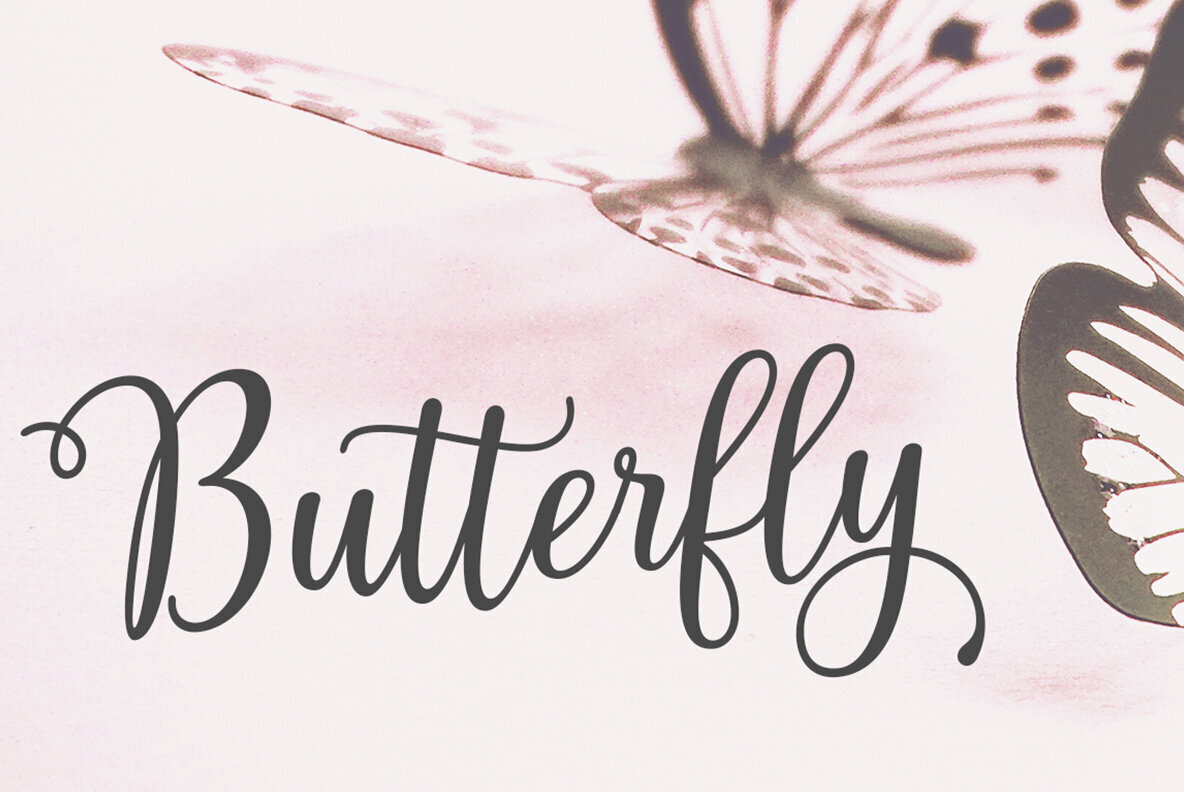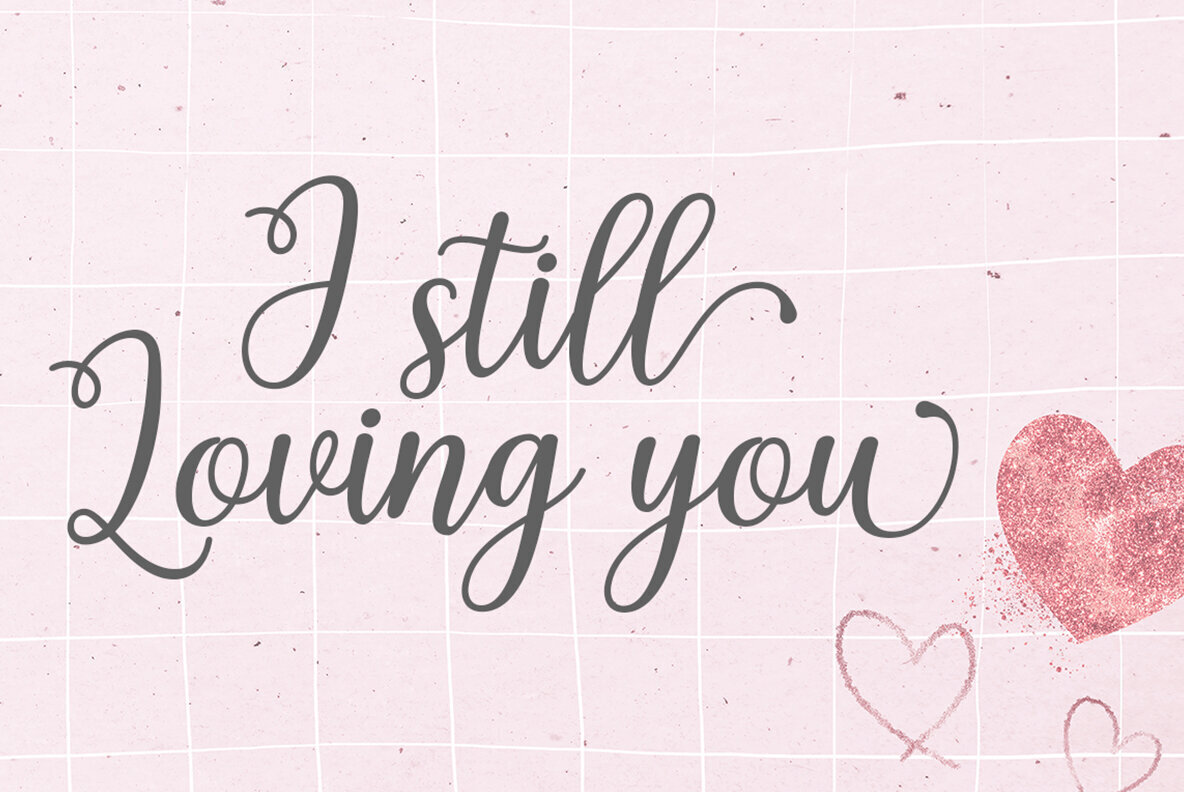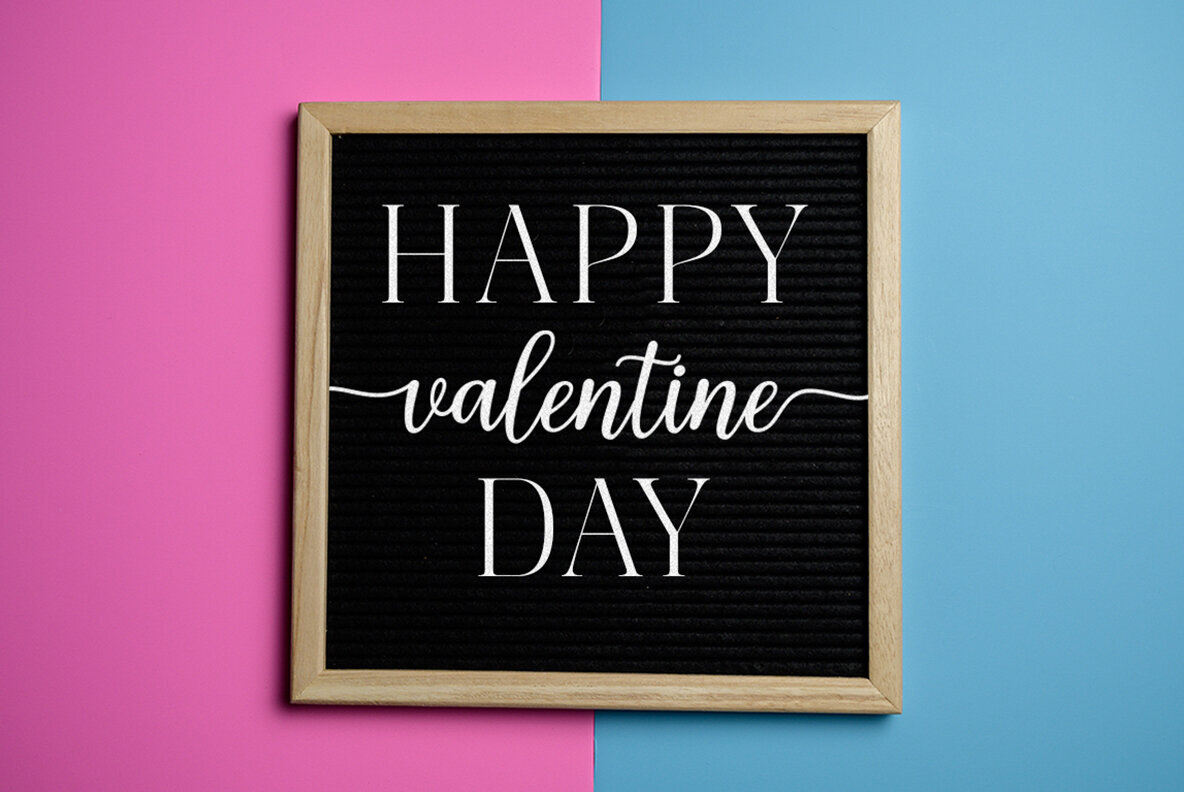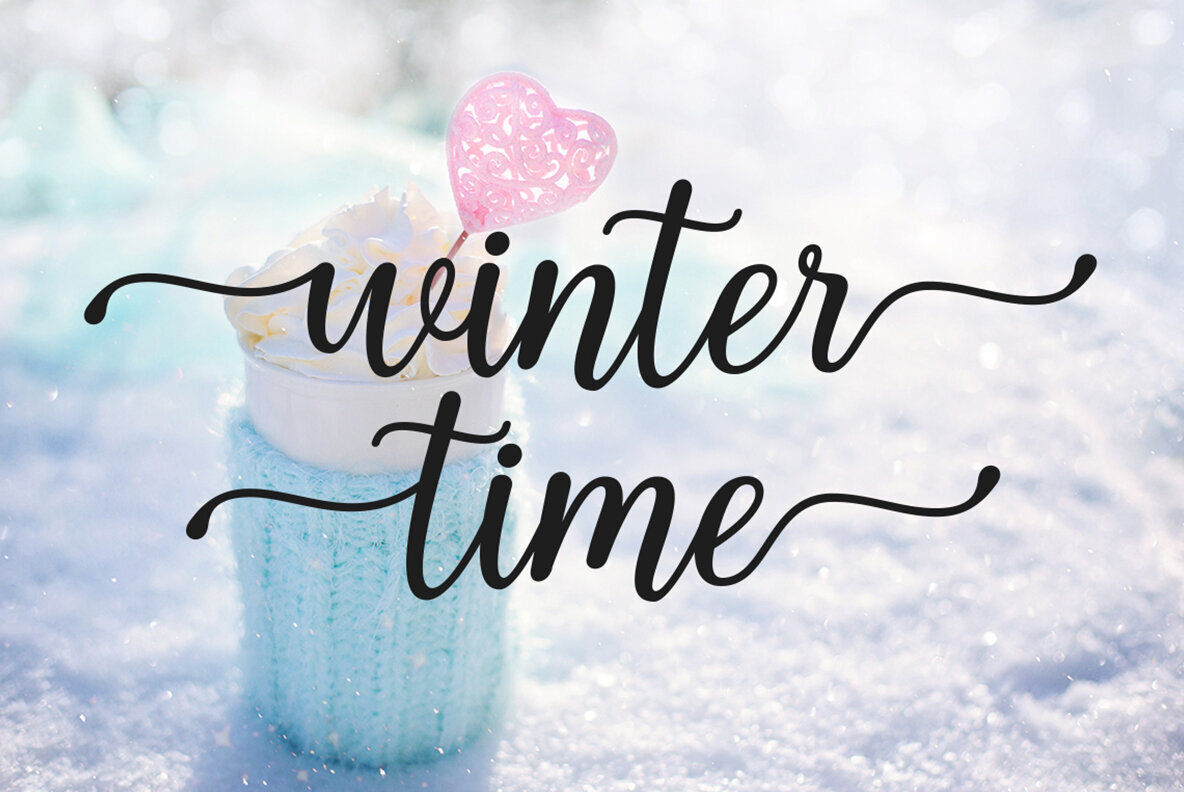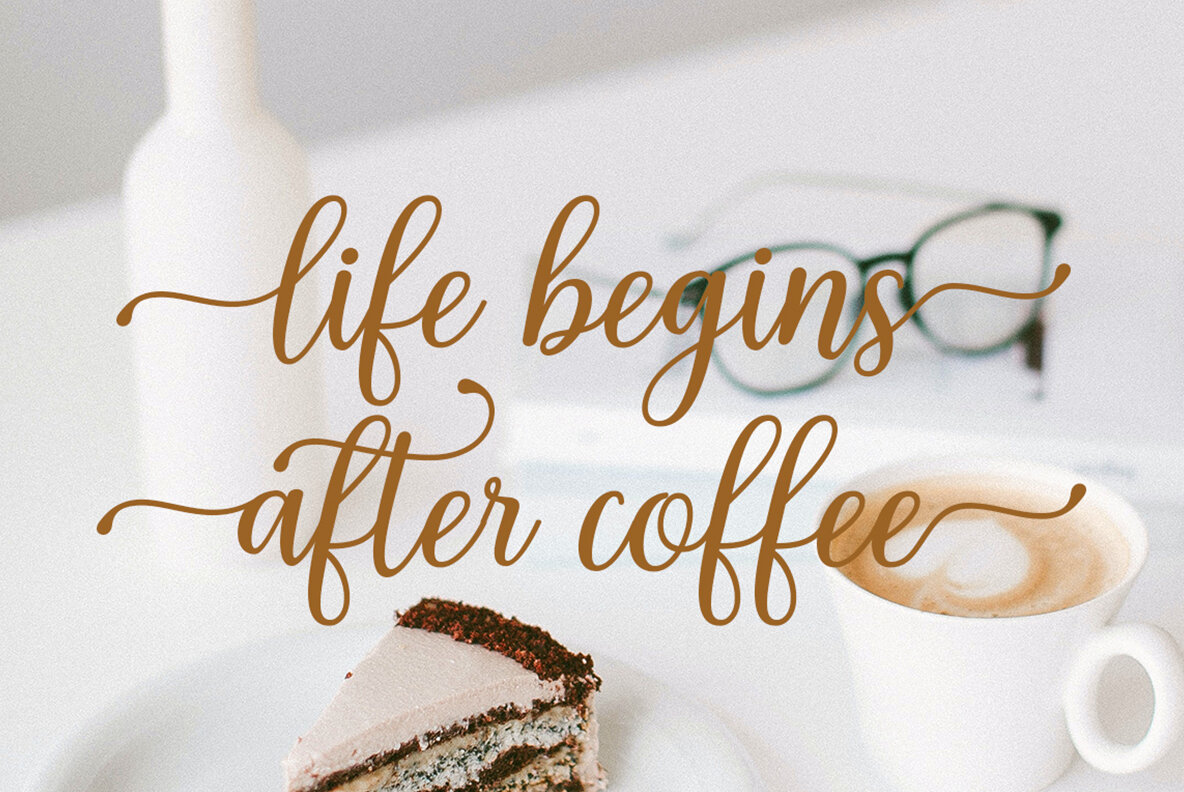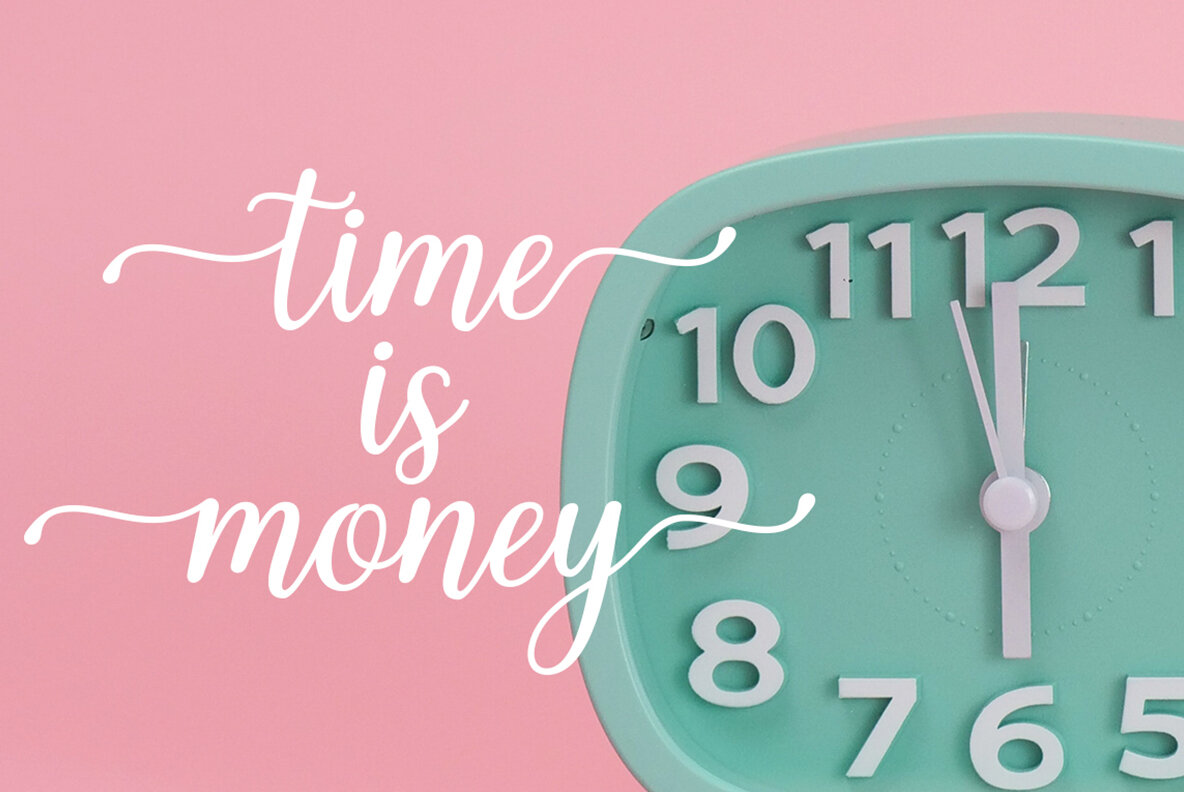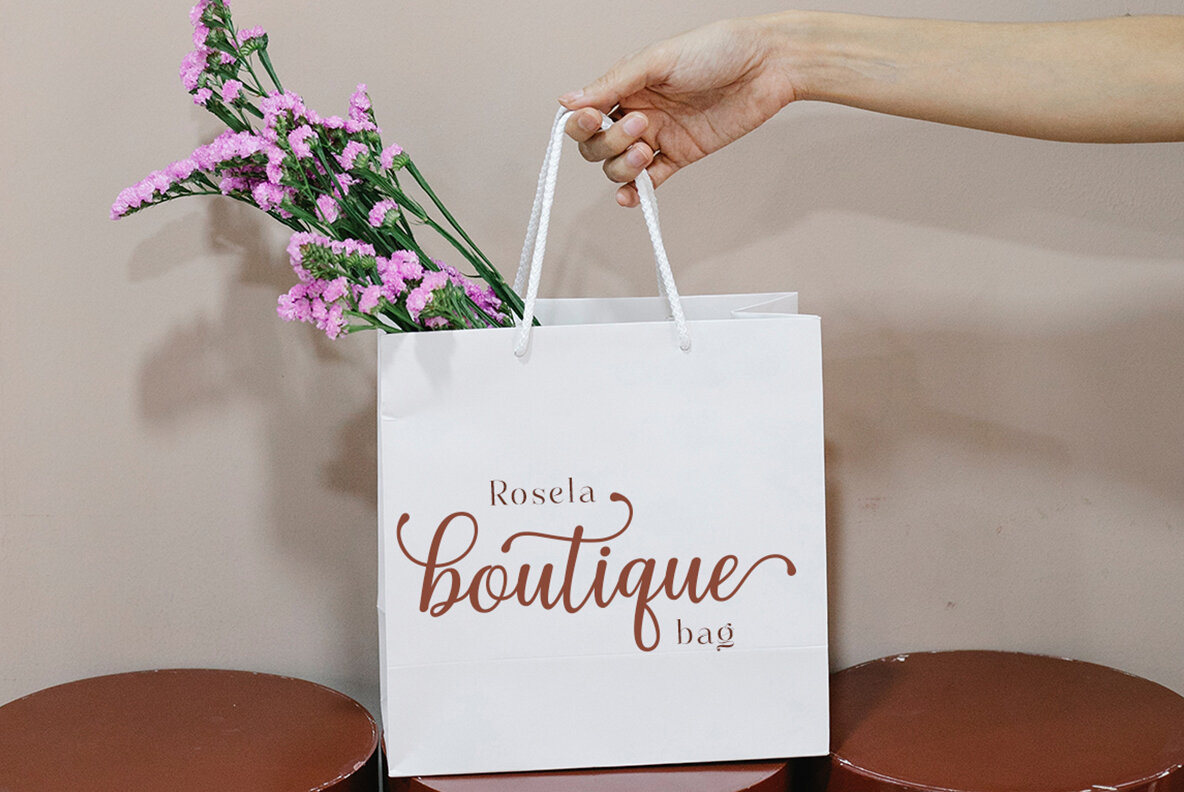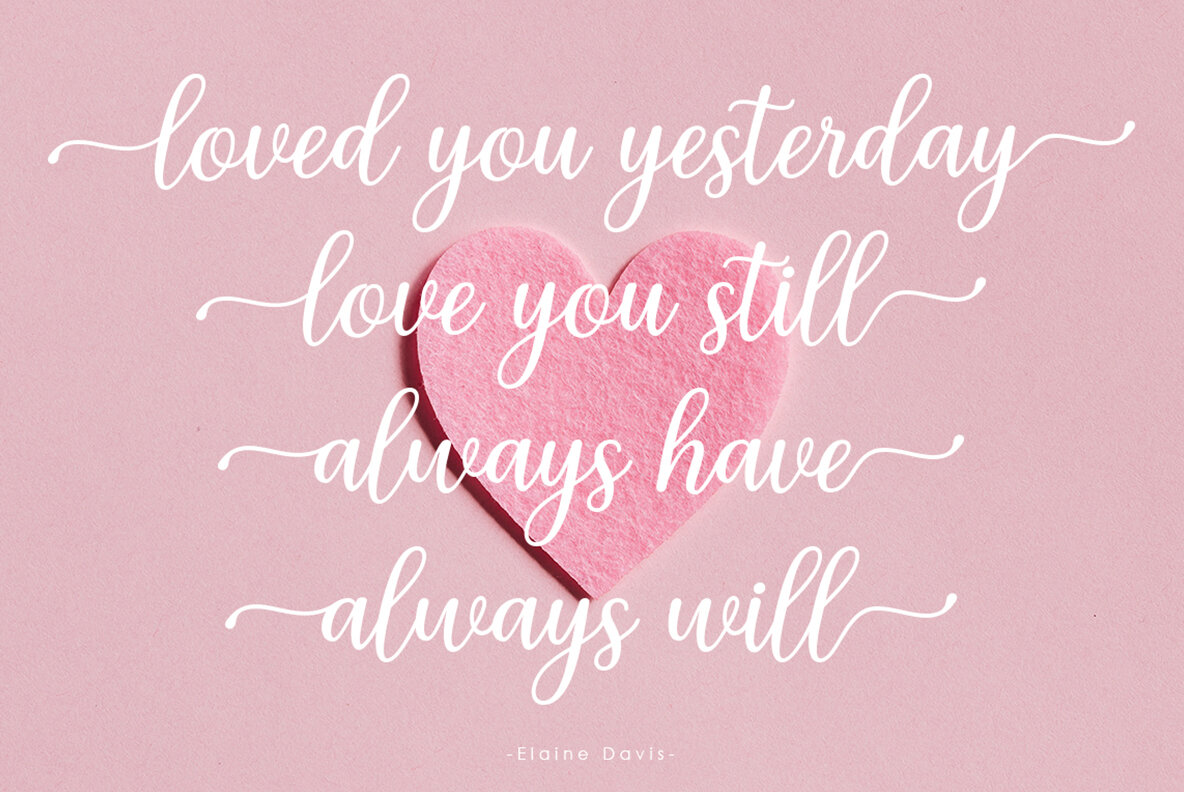
Mishega Font
Mishega
Mishega Script by Megatype embodies the essence of modern calligraphy. Its casual yet sophisticated style is enhanced with elegant swashes, making it an ideal choice for a multitude of design applications. From logos to product packaging and wedding invitations to book covers, this font seamlessly adapts to various creative endeavors.Mishega Script: A Versatile Modern Calligraphy Font